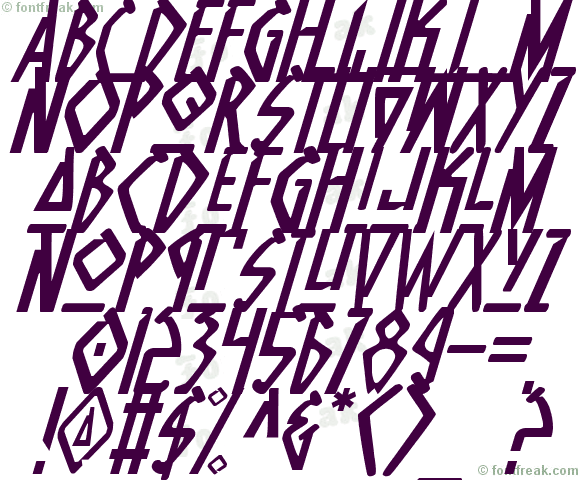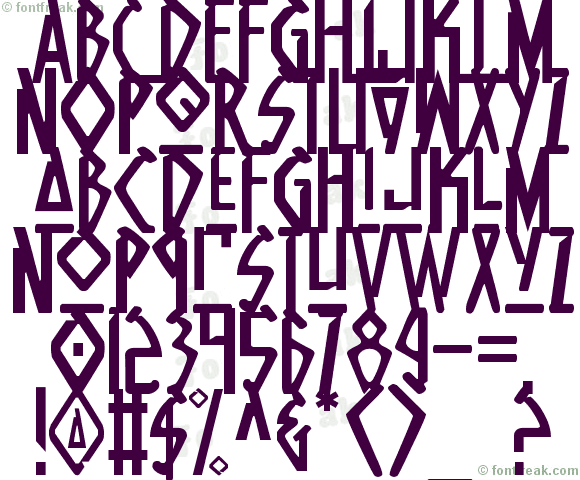
Native Alien Italic
Native Alien
Native Alien Extended
The Native Alien font by Iconian Fonts is a striking display typeface that captures attention with its unique, futuristic design. Released in 2001, this freeware font features a bold, geometric style that combines elements of both native and alien aesthetics. Characterized by its extended letterforms and a consistent stroke weight, the font offers a sense of stability and modernity. The letters are closely spaced, which enhances readability while maintaining a visually compelling appearance, making it suitable for various creative applications.
The Native Alien font is ideal for use cases such as movie posters, where its distinctive style can evoke themes of science fiction or adventure. It's also a great choice for branding projects aimed at tech startups, as it conveys innovation and forward-thinking. Additionally, this font can be effectively utilized in graphic design for video game covers or promotional materials, allowing designers to create an immersive experience for audiences. Small business owners looking for an eye-catching solution for product labels or event flyers will find this font invaluable. Content creators can also leverage the Native Alien font for social media graphics or website headers, ensuring their content stands out in a crowded digital landscape.
Targeting graphic designers, small business owners, and content creators, the Native Alien font free download offers an accessible way to incorporate an artistic flair into any project. Its unique blend of native inspiration and alien motifs creates a versatile typeface that can adapt to various themes and styles. This font stands out not only for its aesthetic appeal but also for its potential to elevate visual communication, making it an excellent choice for anyone seeking to leave a lasting impression.